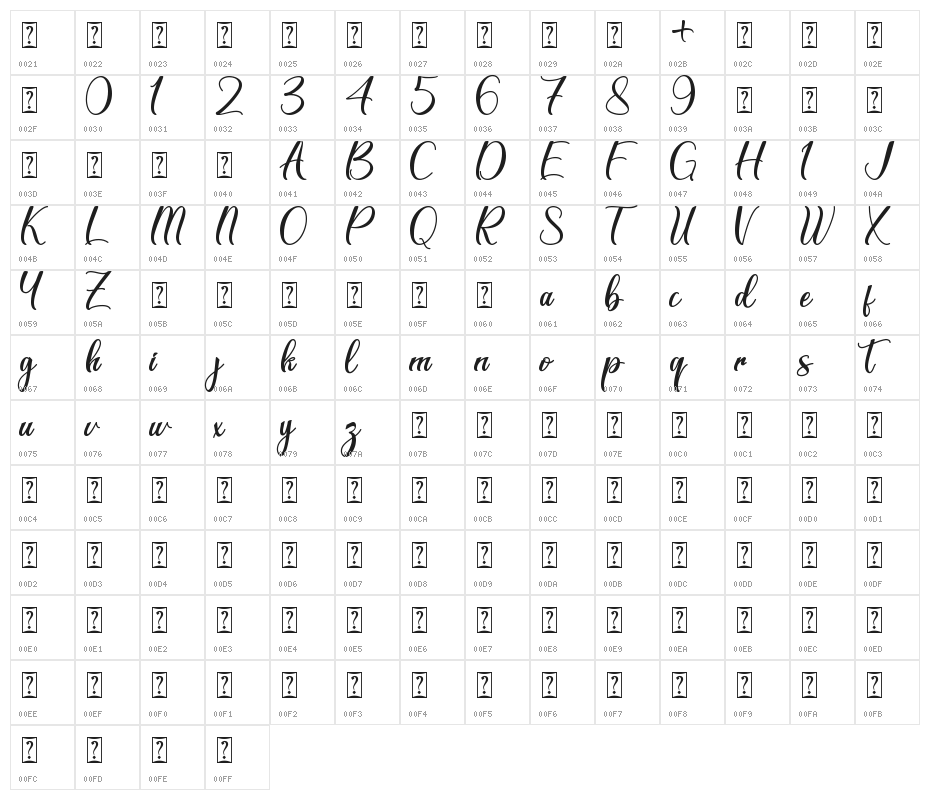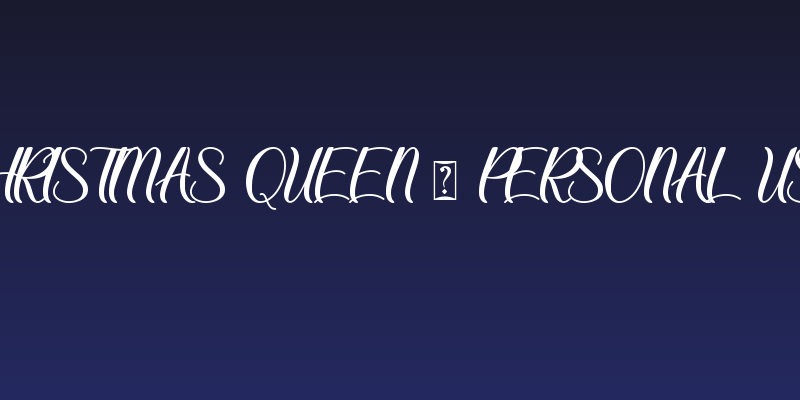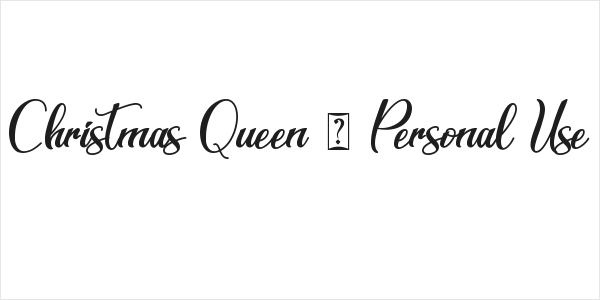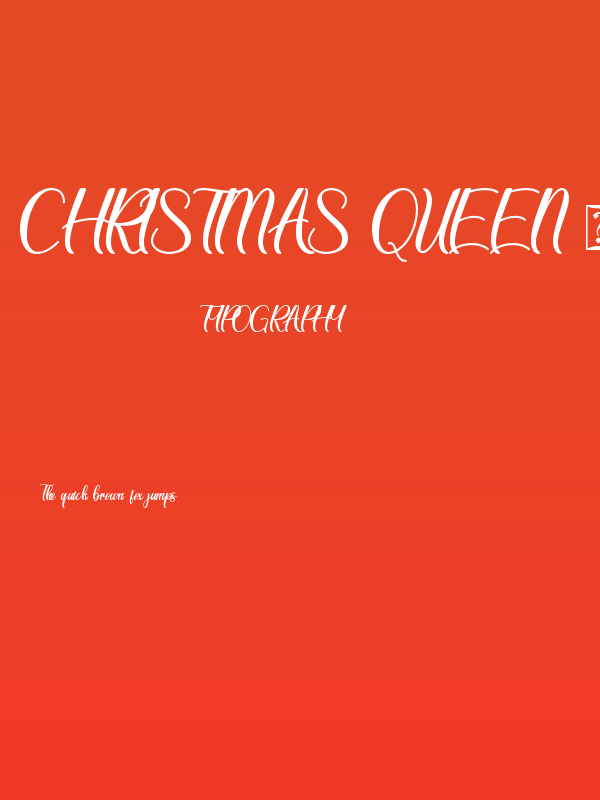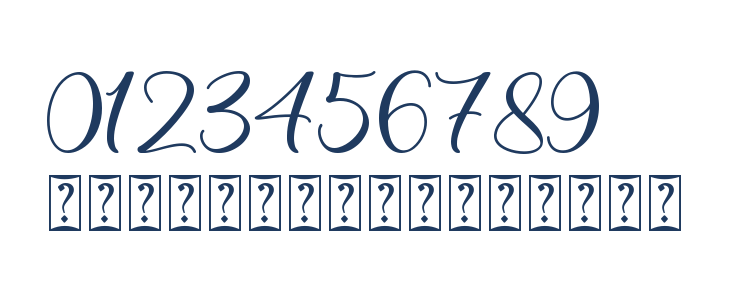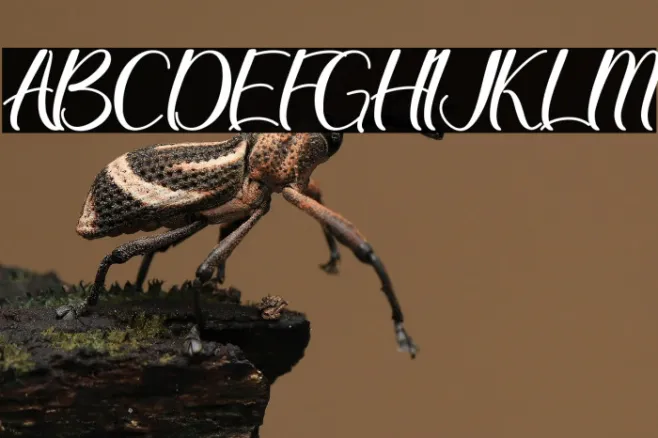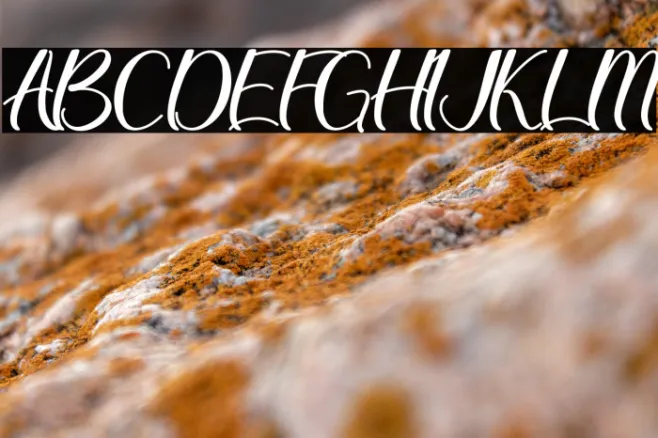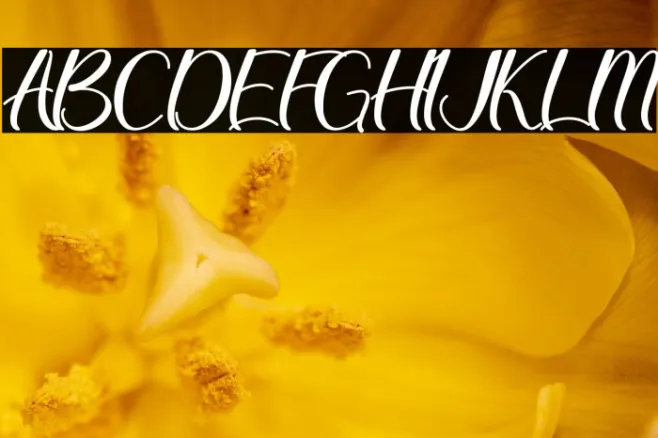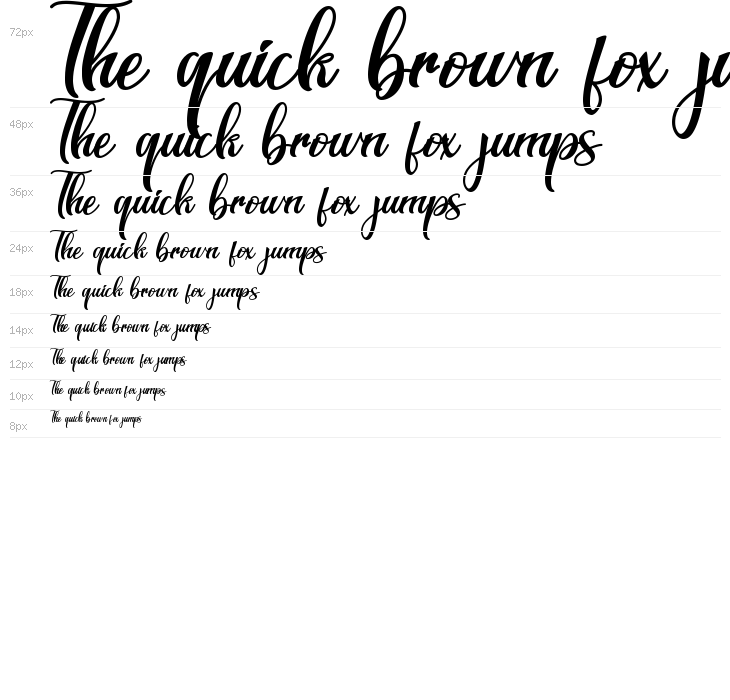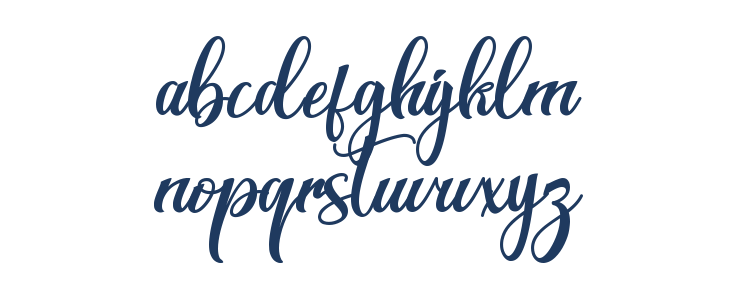
Christmas Queen - Personal Use Font
Christmas Queen - Personal Use Description
This font exudes a festive and elegant flair, characterized by its flowing script style that mimics the fluidity of handwritten calligraphy. The uppercase letters are bold and sweeping, with intricate loops and flourishes that add a touch of sophistication and charm. The lowercase letters maintain a consistent style, featuring smooth curves and connected strokes that enhance readability while preserving the decorative essence. The numerals are equally stylish, with a graceful form that complements the overall aesthetic. This font is perfect for creating a warm and inviting atmosphere, ideal for holiday-themed projects or any occasion that calls for a touch of elegance.